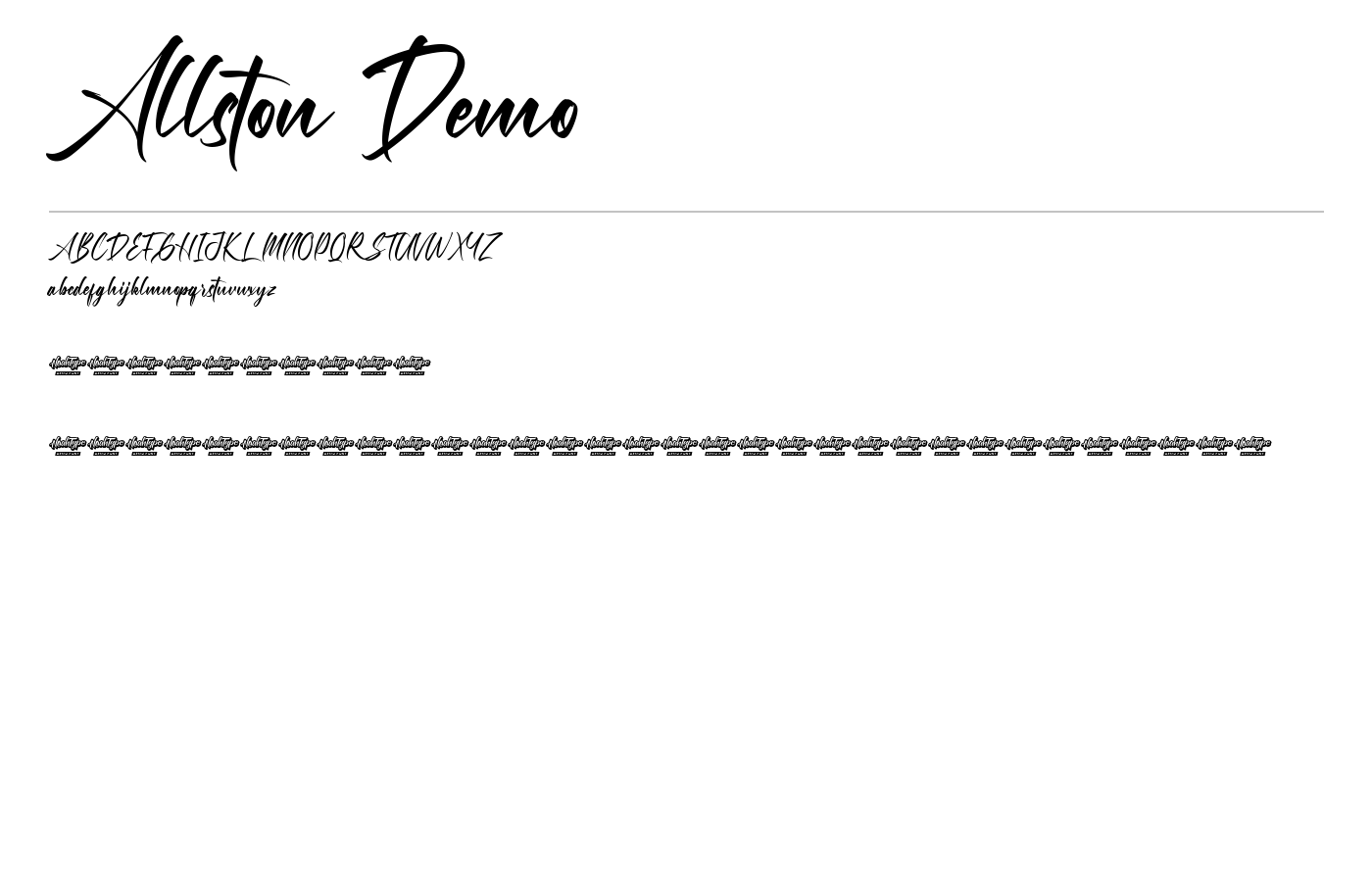
Allston Demo is a stylish script font with a lively, hand-drawn feel characterized by its fluid, brush-like strokes and elegant letterforms. It combines a casual yet sophisticated personality, making it perfect for creative branding, invitations, and trendy headlines where a personal, artistic touch is desired. Its dynamic flow and expressive style bring warmth and charm to designs that want to stand out with a modern, handcrafted vibe.
Allston Demo Font
About Allston Demo Font
| Font family | Allston Demo Font |